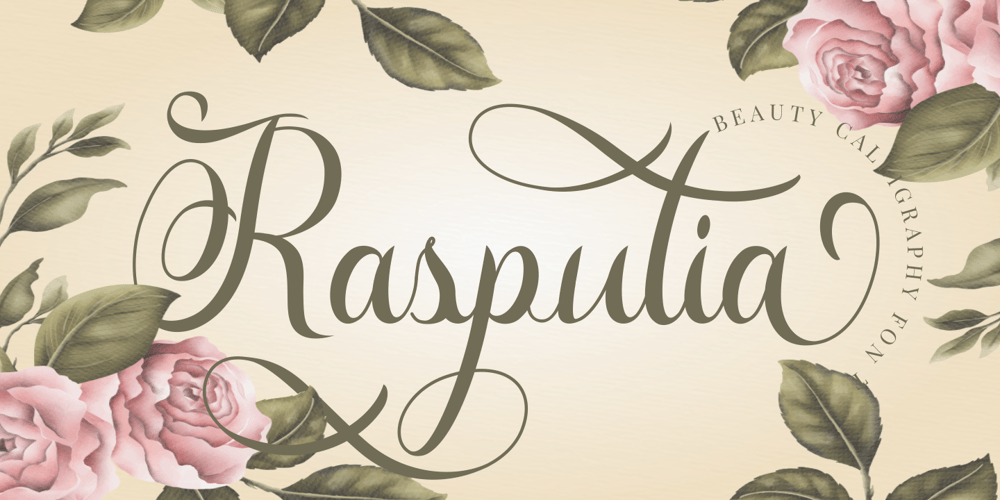
Rasputia Font Family was designed by Putra Novembria Candra Kusuma and published by Putracetol. Rasputia contains 1 styles and family package options. Rasputia is a luxury, elegant, and beautiful calligraphy font. It is full featured with tons of alternate characters and OpenType features. This font designed to work together in harmony that makes it very suitable for wedding media, book covers, greeting cards, logos, branding, business cards and certificates, even for any design work that requires an elegant or luxurious style.